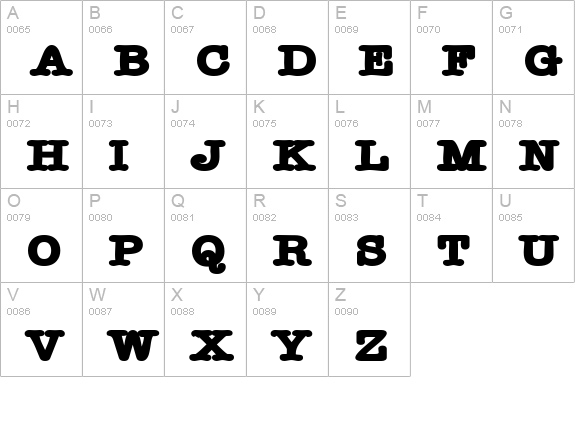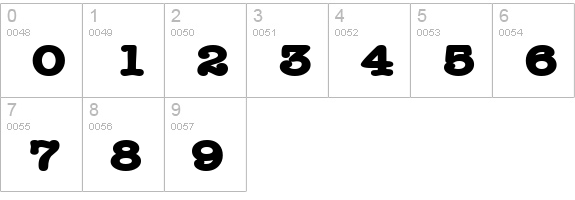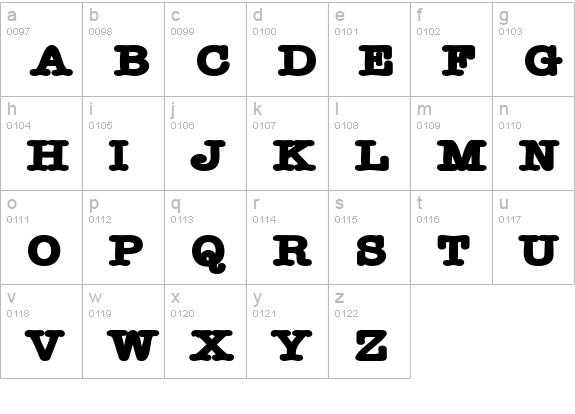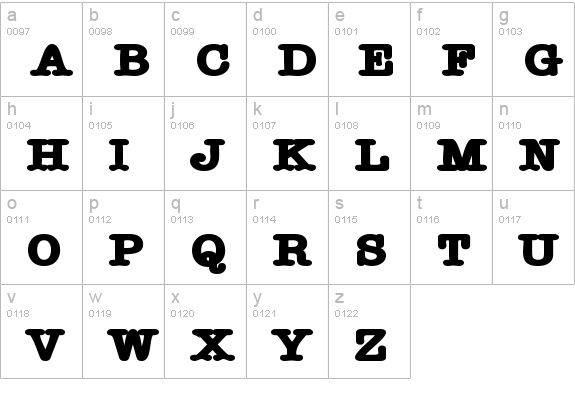
BoxOJoe Font Details
BoxOJoe font is a modern and stylish typeface that is perfect for a wide range of design projects. With its bold and eye-catching appearance, this font is sure to make a statement and grab the attention of your audience. The BoxOJoe font features strong lines and smooth curves, giving it a sleek and professional look that can enhance any design. What sets BoxOJoe font apart is that it is completely free to download at FontsMarket.com. This means that you can easily access this versatile font and use it in your projects without any cost. Whether you are creating a logo, designing a poster, or working on a website, BoxOJoe font is a fantastic choice that will add a touch of sophistication to your work. So why wait? Download BoxOJoe font today and elevate your designs with this stylish and modern typeface that is both visually appealing and freely available for you to use.